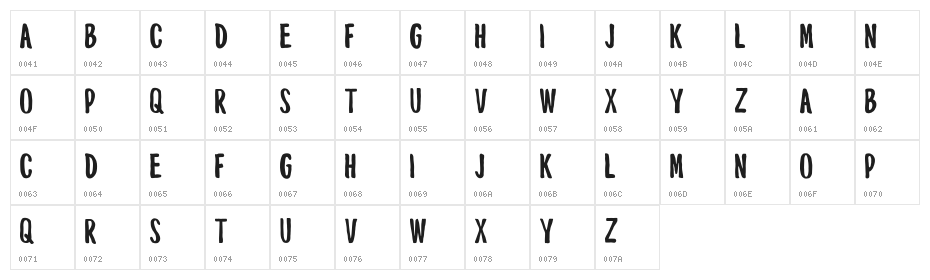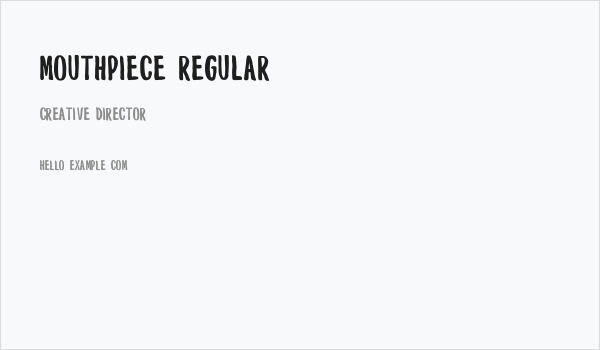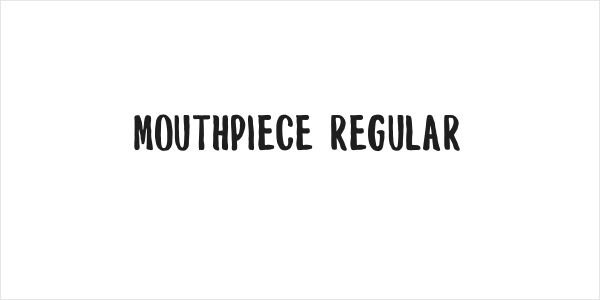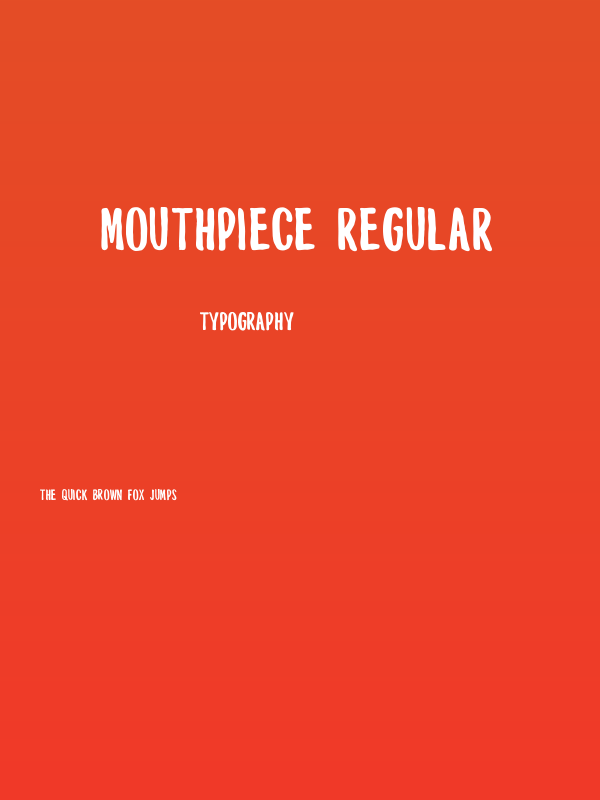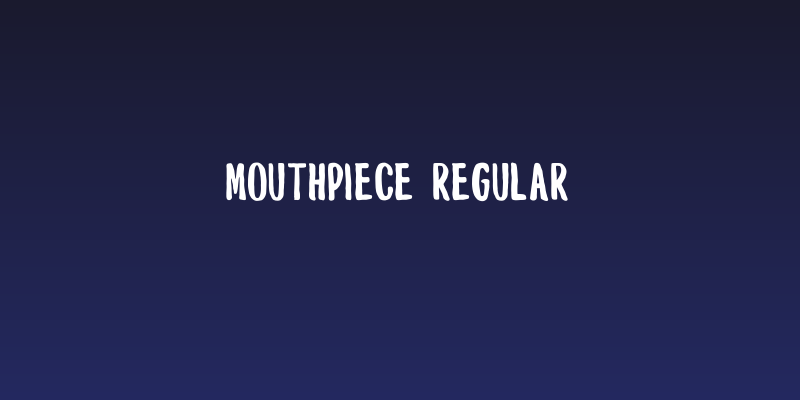
Mouthpiece Regular Font
Mouthpiece Regular Description
This font features a bold and playful design with a hand-drawn aesthetic. The letters are thick and slightly irregular, giving them a casual and friendly appearance. The strokes are consistent in width, contributing to a cohesive look across all characters. The uppercase letters are prominent and well-defined, making them suitable for attention-grabbing headlines or titles. The overall style is reminiscent of a marker or brush pen, adding a touch of creativity and informality to any project.
| Proposed Projects | Ideal for posters, children's books, branding, and social media graphics. |